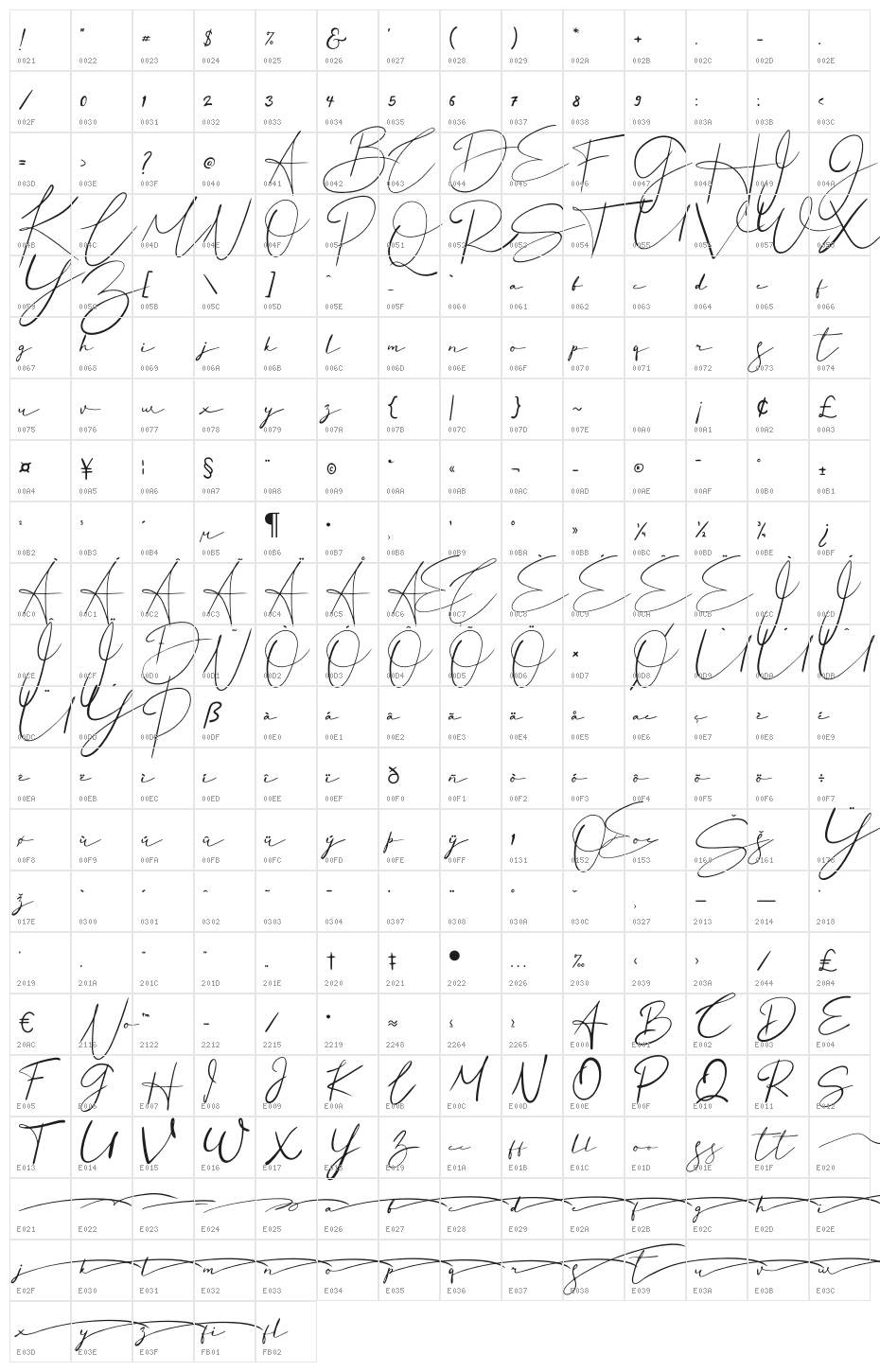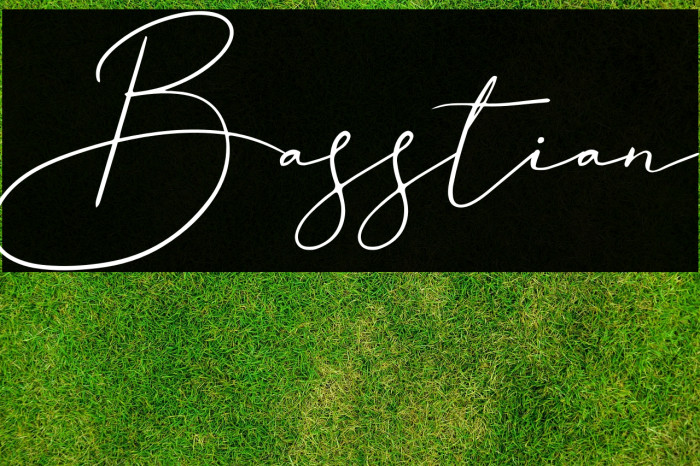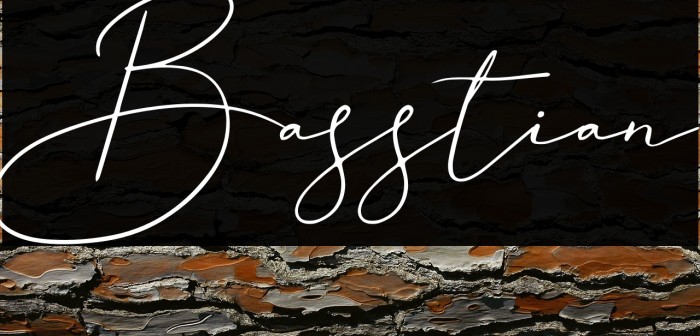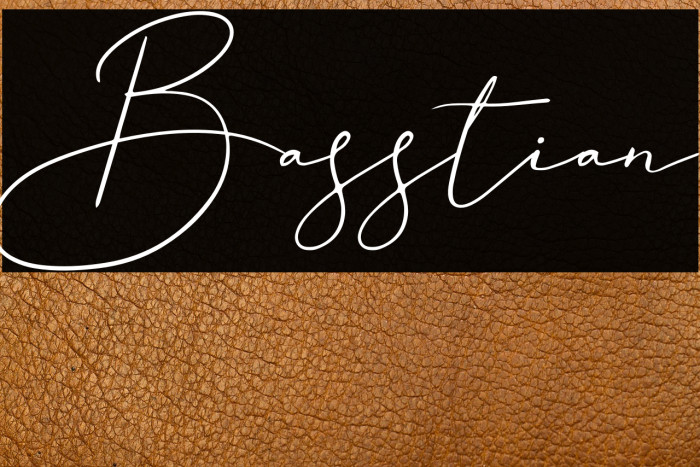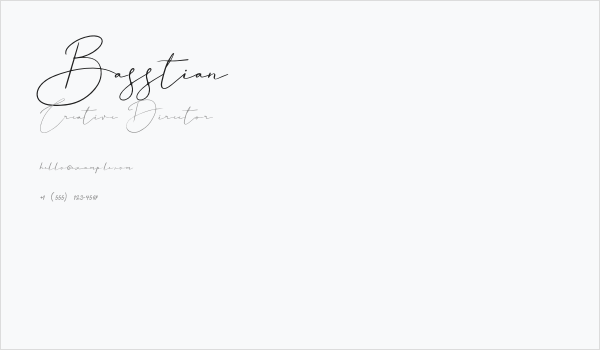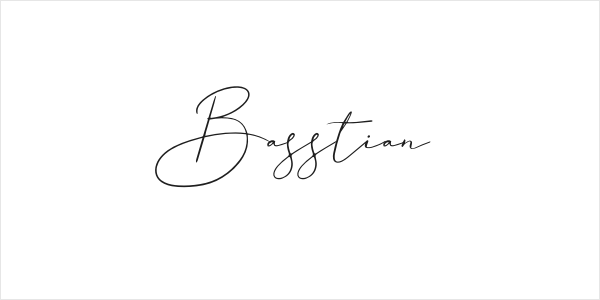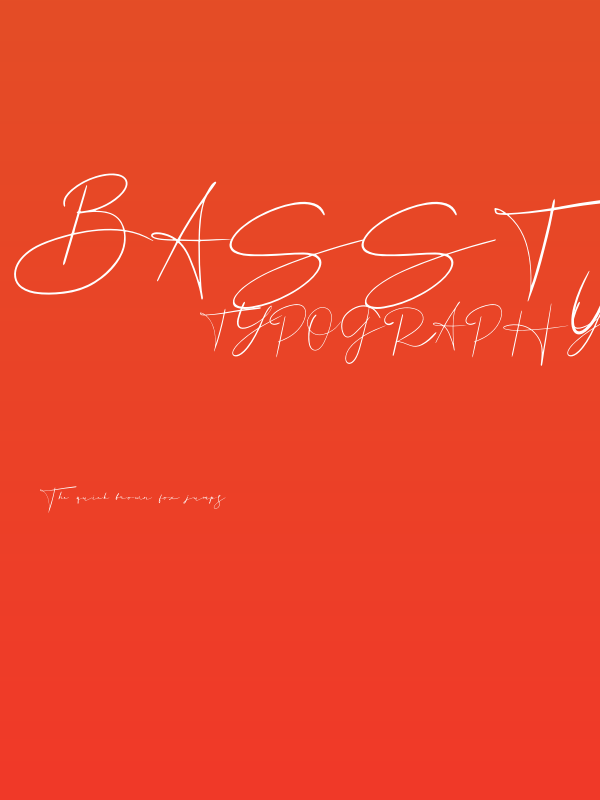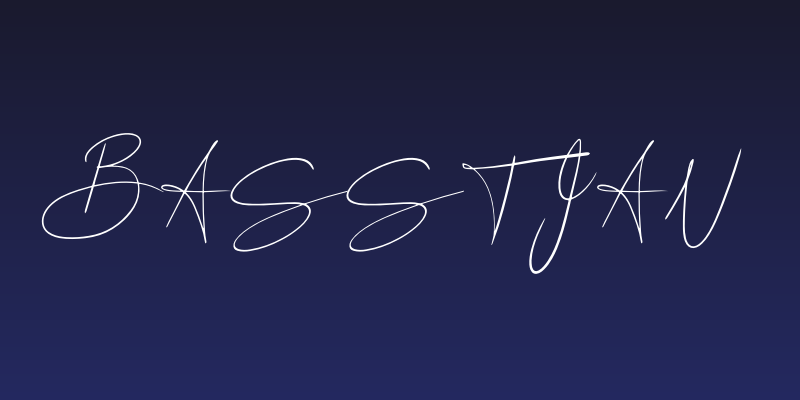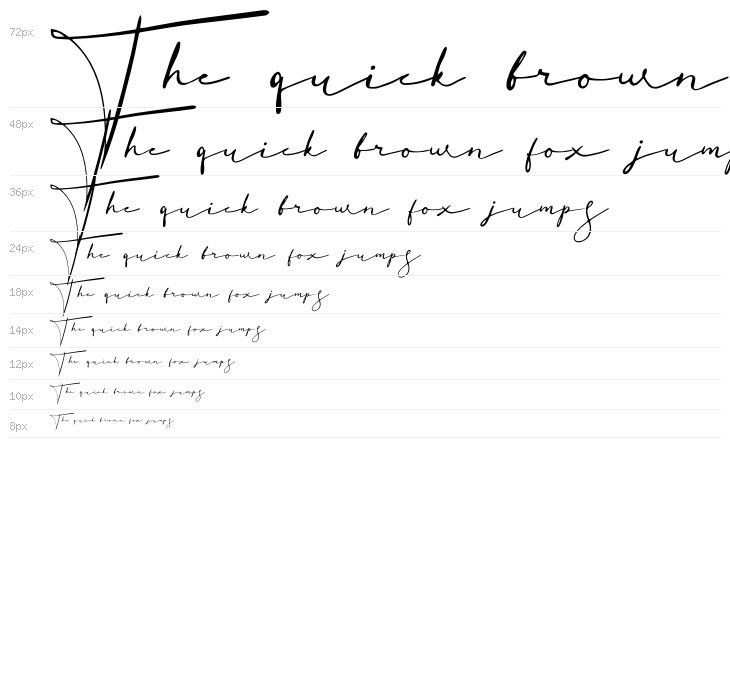
Basstian Font
Basstian Description
This font features a modern, handwritten style with a fluid and elegant appearance. The uppercase letters are slender and elongated, giving a sophisticated and airy feel. The lowercase letters maintain a consistent flow, with some characters extending slightly below the baseline, adding to the font's dynamic nature. The numerals are clear and easy to read, matching the overall aesthetic. Special characters are thoughtfully designed, maintaining the font's cohesive look. This font's versatility makes it suitable for a variety of creative projects, offering a personal touch with its script-like quality.
| Use Case | Logos, Invitations, Social Media |
| Proposed Projects | Ideal for wedding invitations, branding, social media graphics, and personal stationery. |